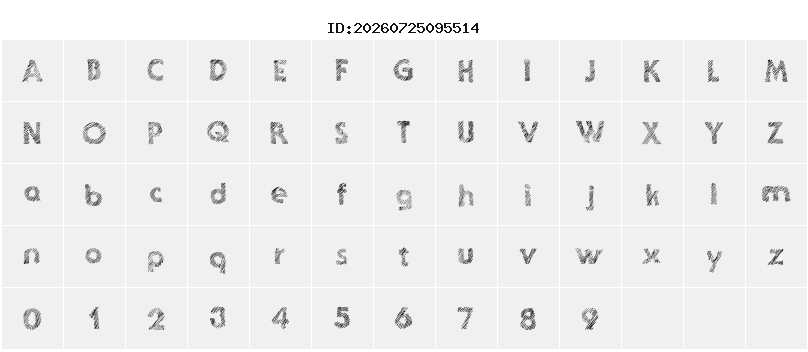
• Font Name: Ghotic Sketch
• Full Font Name: Ghotic Sketch
• Designer: Martin Steiner
About Ghotic Sketch.ttf
Ghotic Sketch.ttf is a modern, elegant sans-serif font designed for ultimate readability and visual harmony. Perfect for branding, headlines, web design, and print materials.